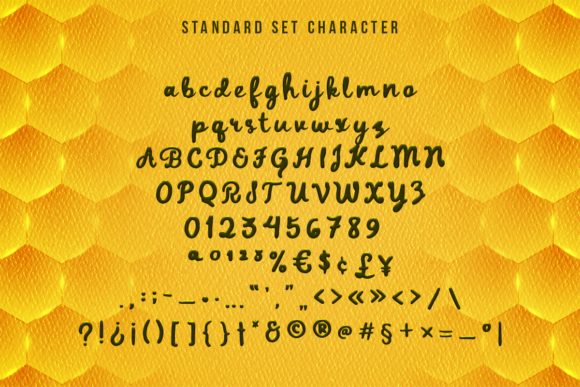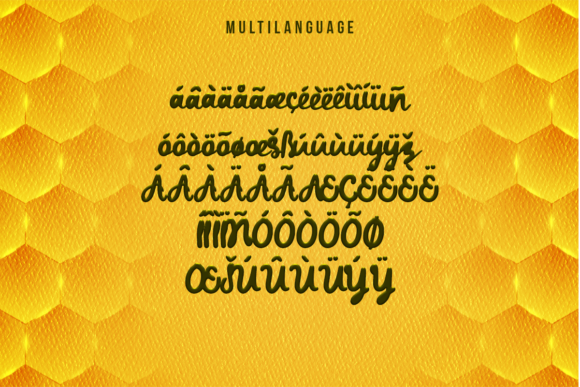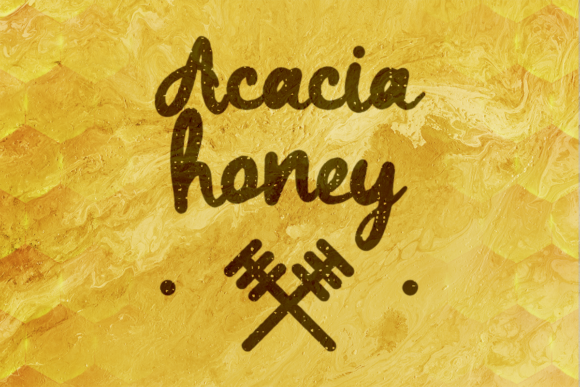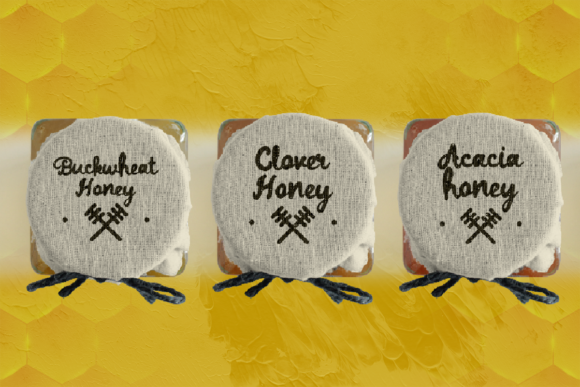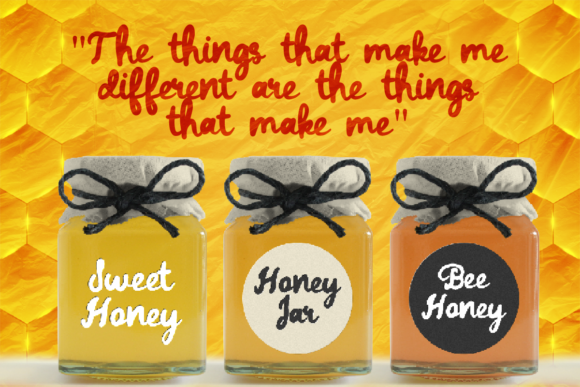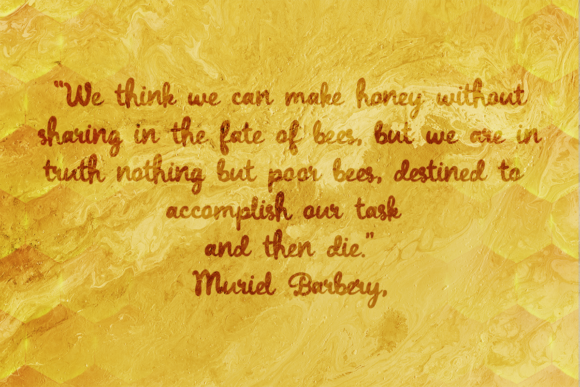
The Ultimate Guide to Daddy Bee Font: A Bold and Cute Handwritten Font
I’ll never forget the time I was working on a project for a client’s children’s book. I had a clear vision of the story, the illustrations, and the overall aesthetic, but there was one thing missing – the perfect font. I scoured the internet, tried out dozens of fonts, but none of them seemed quite right. That was until I stumbled upon Daddy Bee Font. ✨
As soon as I saw it, I knew I had found the one. The bold and cute handwritten style was exactly what I needed to bring the story to life. In this article, I’ll share my experience with Daddy Bee Font, its features, and how to make the most of it in your designs.
An Honest Review of Daddy Bee Font
- ✨ Bold and eye-catching: Daddy Bee Font is perfect for making a statement in your designs. Its bold style ensures that your text will stand out, whether it’s on a poster, a website, or a social media post.
- ✅ Cute and playful: The handwritten style of Daddy Bee Font gives it a playful and charming feel that’s perfect for designs aimed at children or a younger audience.
- 💻 Highly versatile: Despite its bold style, Daddy Bee Font is surprisingly versatile and can be used in a variety of design contexts, from branding to packaging.
While Daddy Bee Font is an excellent choice for many designs, there are a few things to keep in mind. 🤔
- ⚠️ Legibility at small sizes: Like many bold fonts, Daddy Bee can become a bit tricky to read at very small sizes. It’s best used at larger sizes where its bold style can shine.
- ⚠️ Limited suitability for body text: Due to its bold style, Daddy Bee Font is better suited for headings and titles rather than body text. For longer blocks of text, a lighter font would be more readable.
The Backstory of Daddy Bee Font
Daddy Bee Font was created by a team of designers who wanted to create a font that was both bold and cute. Inspired by the playful and charming style of handwritten fonts, they set out to create a font that would be perfect for designs aimed at children or a younger audience. The result is a font that’s both eye-catching and versatile, making it perfect for a wide range of design applications.
Q: What is Daddy Bee Font?
A: Daddy Bee Font is a bold and cute handwritten font that’s perfect for making original and outstanding designs.
Q: Is Daddy Bee Font suitable for body text?
A: While Daddy Bee Font is a great choice for headings and titles, it’s not the best choice for body text due to its bold style. A lighter font would be more readable for longer blocks of text.